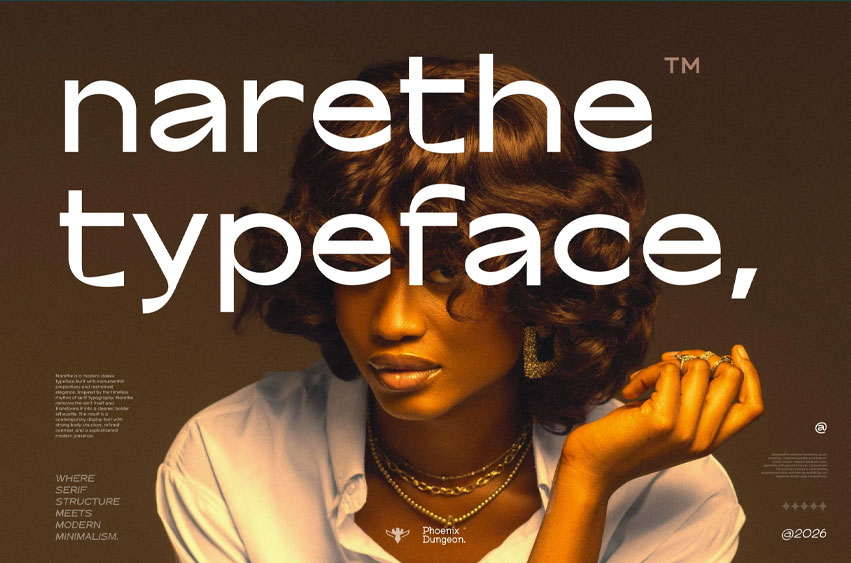
Narethe Typeface Font is a modern classic typeface built with monumental proportions and restrained elegance. Inspired by the timeless rhythm of serif typography, Narethe removes the serif itself and transforms it into a cleaner, bolder silhouette. The result is a contemporary display font with strong body structure, refined contrast, and a sophisticated modern presence.
Designed for editorial headlines, luxury branding, cinematic posters, and fashion-driven visuals, Narethe balances sharp geometry with graceful curves. Its oversized construction creates a commanding appearance while maintaining readability and elegance across large compositions.